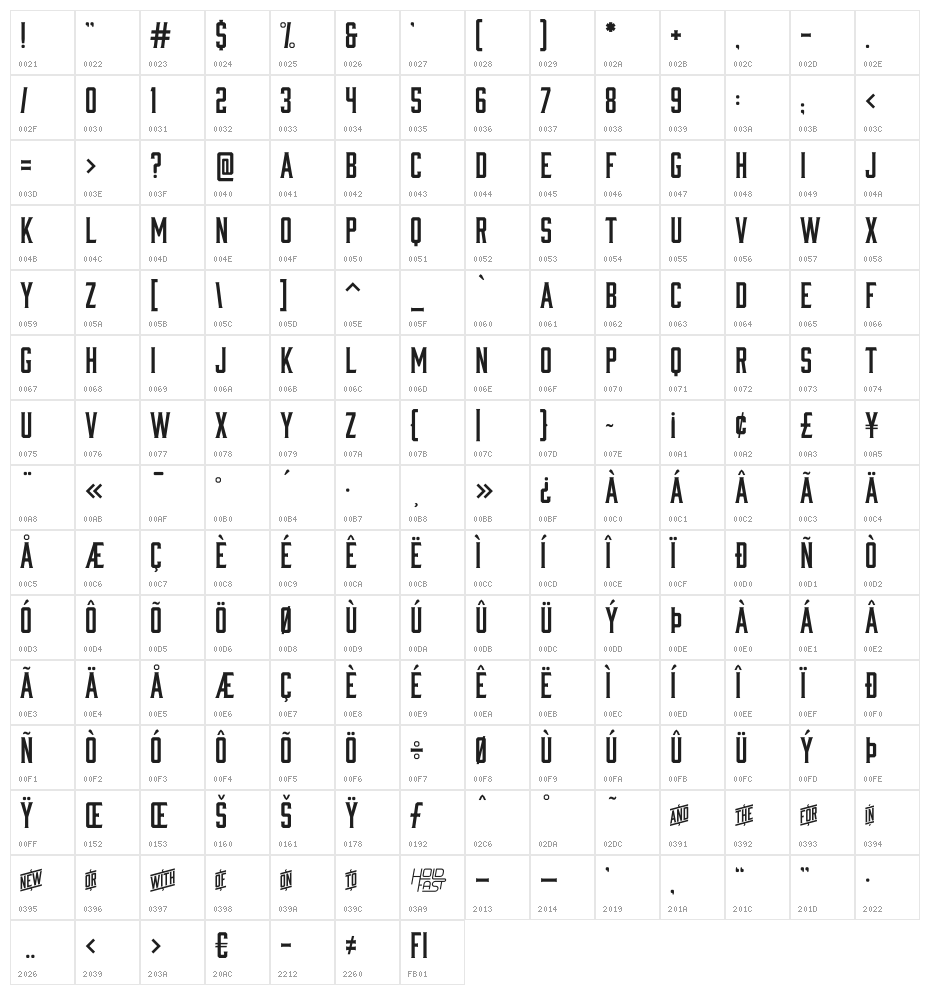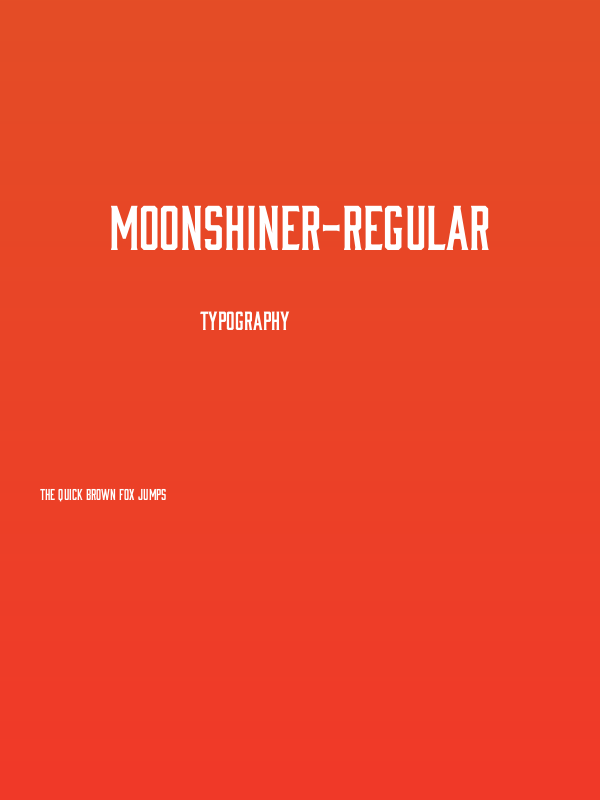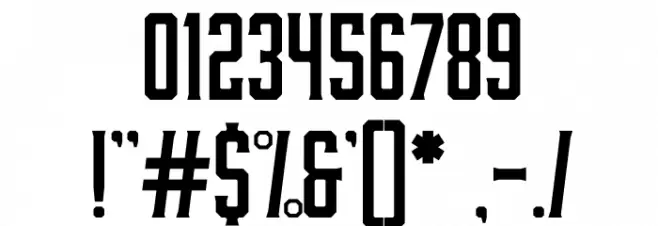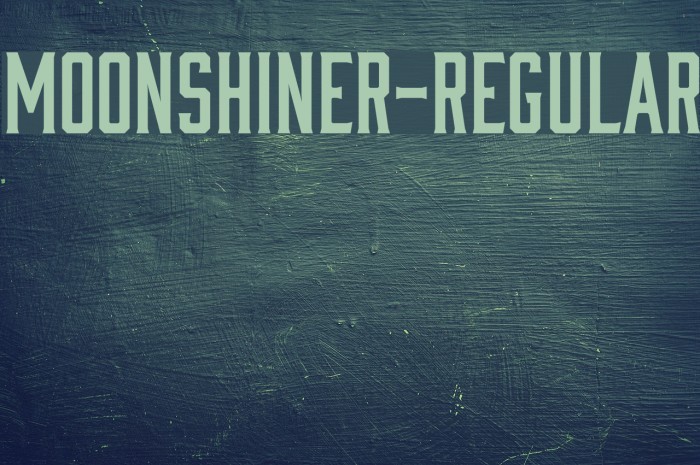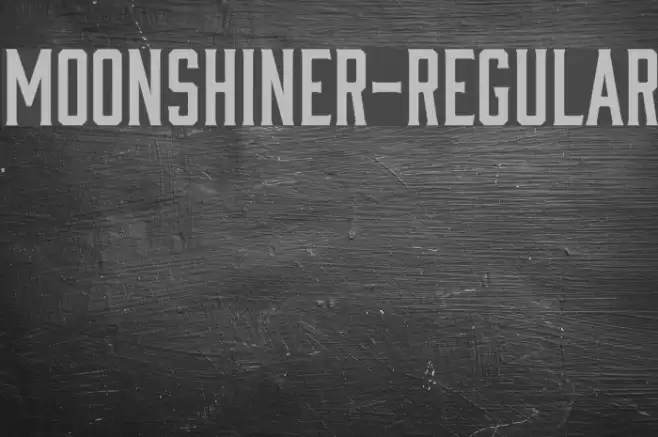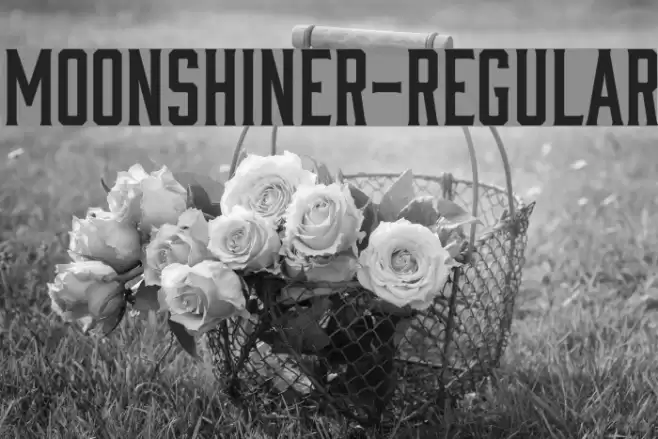
Moonshiner-Regular Font
Moonshiner-Regular Description
This font features a bold and striking design with a distinctly vintage flair. The characters are tall and narrow, with sharp angles and a strong presence. The uppercase letters dominate the design, creating a sense of authority and impact. The numbers and special characters maintain the same boldness, ensuring consistency across all elements. The overall style is reminiscent of early 20th-century signage, making it ideal for projects that require a touch of nostalgia or a bold statement.
| Width | Condensed |
| Overall Style | Vintage |
| Proposed Projects | Ideal for vintage-themed posters, signage, branding, and headlines that require a strong, impactful presence. |
| Author | Fonts by Yoga Letter |